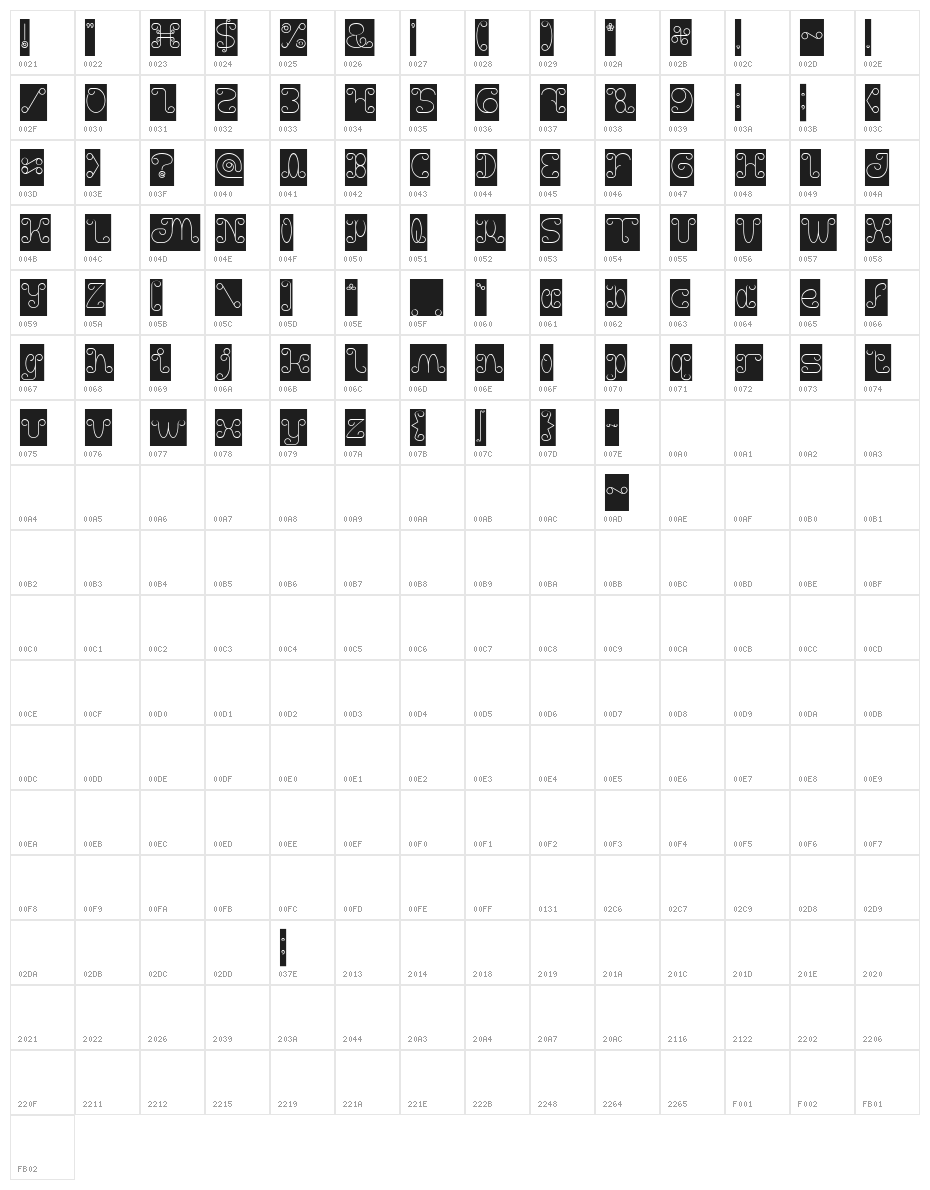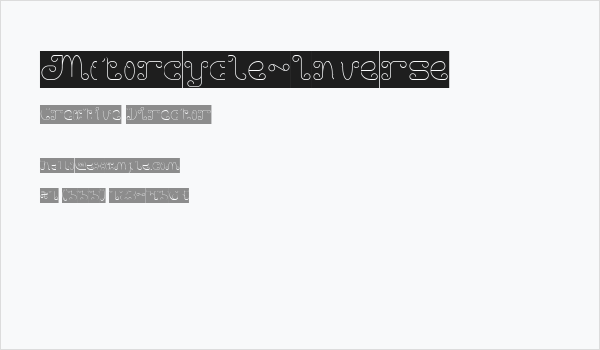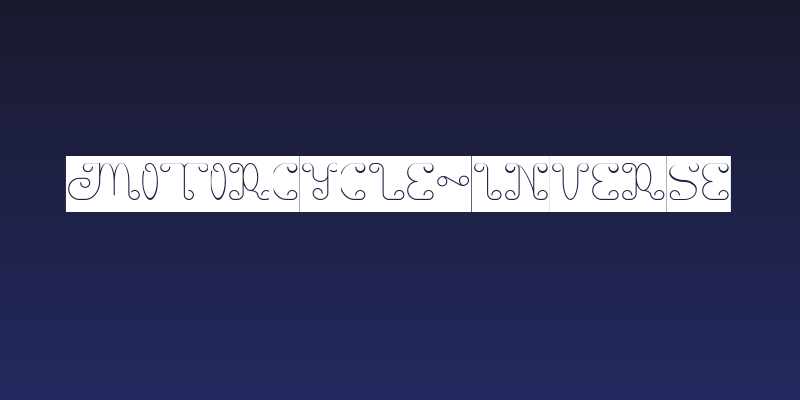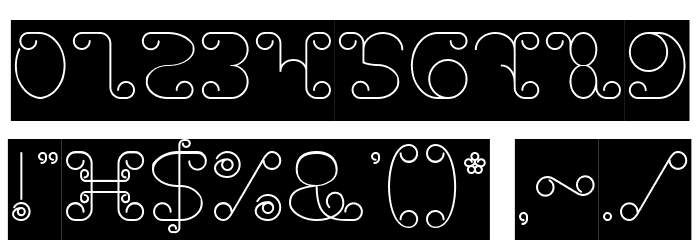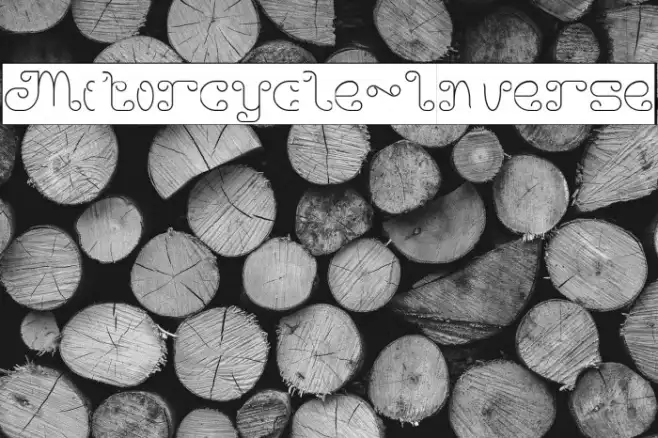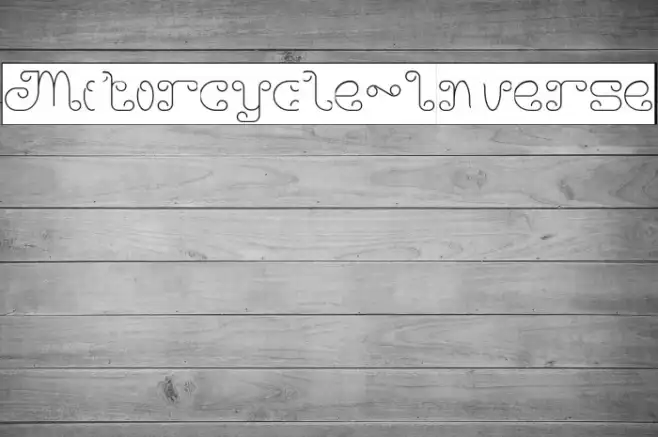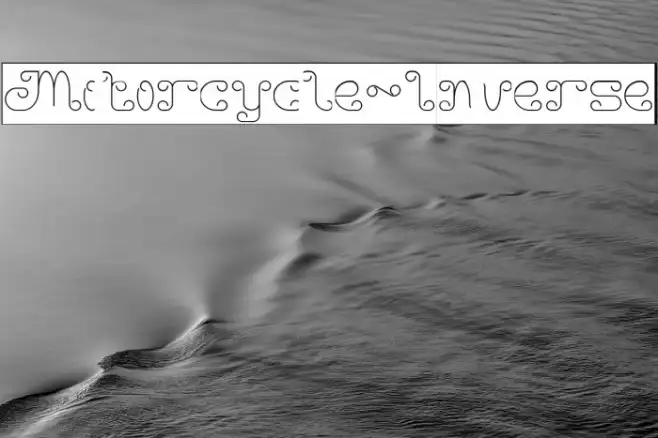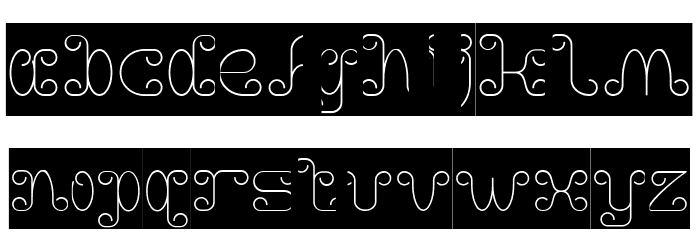
Motorcycle-Inverse Font
Motorcycle-Inverse Description
This font features a unique and playful design with a decorative flair. Each character is crafted with intricate loops and swirls, creating a whimsical and artistic appearance. The strokes are consistent in thickness, giving it a uniform look despite its ornate style. The font maintains a sense of balance and symmetry, making it visually appealing and easy to read. Its distinctiveness lies in the creative use of curves and embellishments, which add a touch of elegance and sophistication. This font is ideal for projects that require a touch of creativity and artistic expression.
| Use Case | Logos, Headlines, Artistic designs |
| Proposed Projects | Ideal for creative projects such as invitations, posters, branding, and artistic designs. |